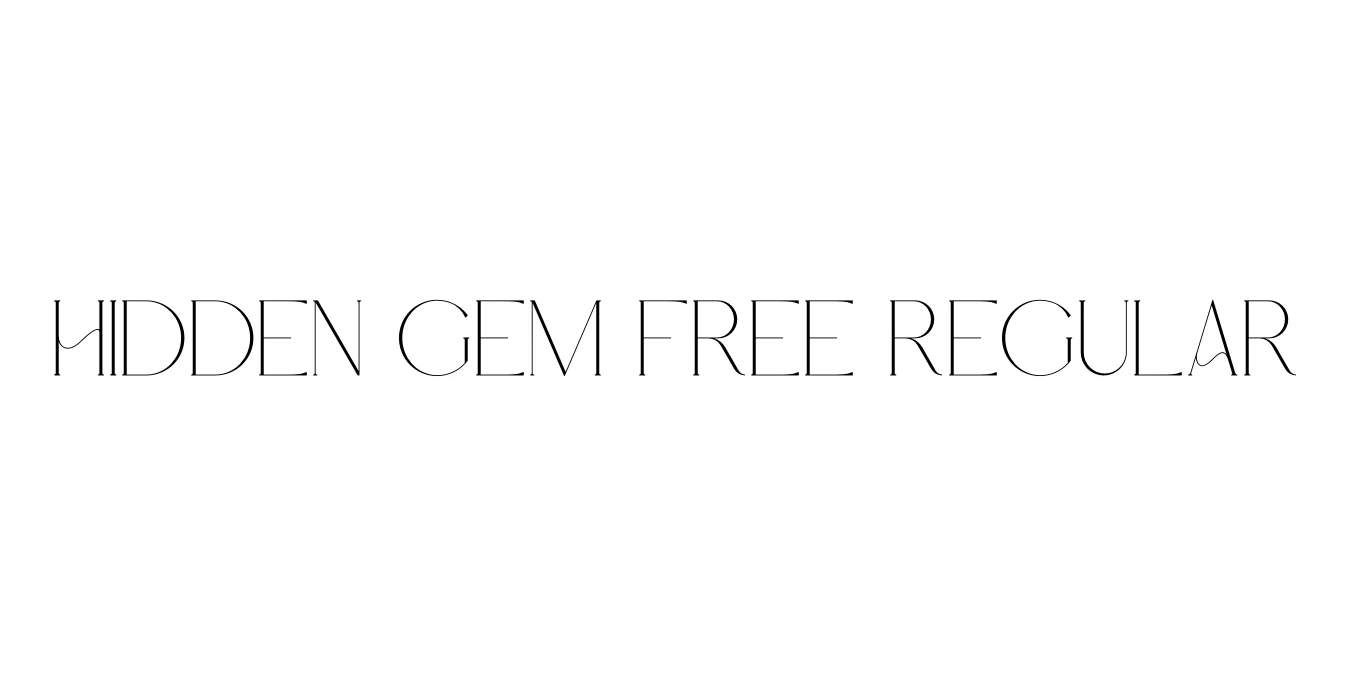
Hidden Gem Free Regular
Designed by Vultype Co
Hidden Gem Free Regular is a sophisticated and contemporary serif typeface that embodies a sense of understated elegance and luxury. Developed by Vultype Co, this font was meticulously crafted to provide designers with a versatile tool that balances classic typographic structures with modern design sensibilities. Its clean lines and subtle curves make it an excellent choice for projects requiring a touch of refinement and professional polish.
The Regular weight of this typeface is particularly effective in editorial contexts, where legibility and stylistic flair are equally important. Whether used for large-scale displays or smaller body text, Hidden Gem maintains its visual integrity and distinctive character. It serves as a bridge between traditional serif fonts and high-fashion aesthetics, making it a staple for creative professionals working in branding, advertising, and high-end print media.
Hidden Gem Free Regular Best Uses
Ideal for creating high-end luxury brand identities and sophisticated logos.
Perfect for magazine mastheads, article headings, and stylistic book covers.
Excellent for aesthetic quote graphics and promotional content on visual platforms like Instagram.